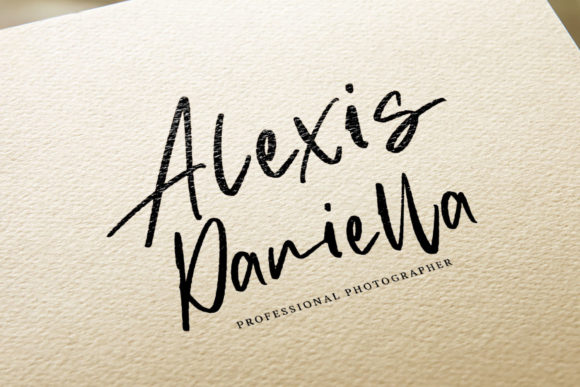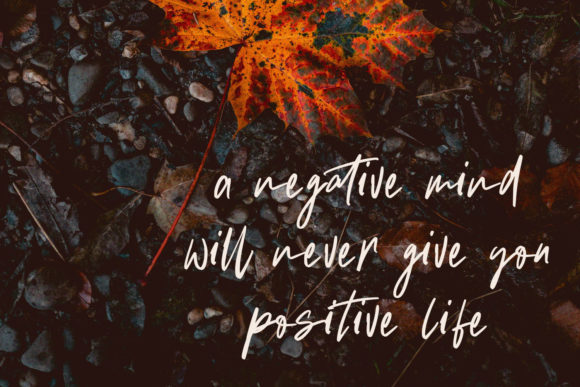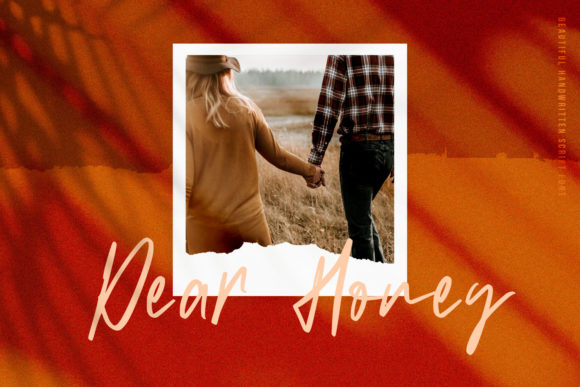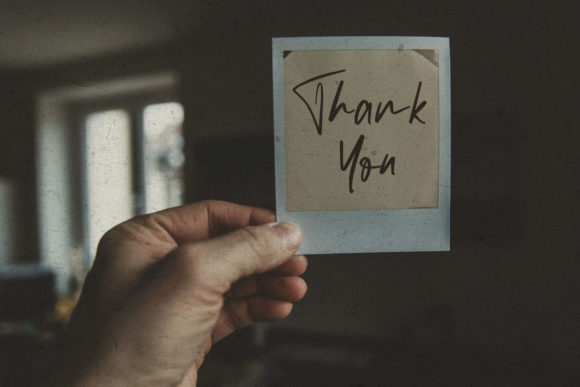
Gaston Kassano Font
About Gaston Kassano Font
Gaston Kassano is a modern and elegant looking handwriting font. Fall in love with its relaxed style and use it to create great cards, stationary art, social media posts, and much more!